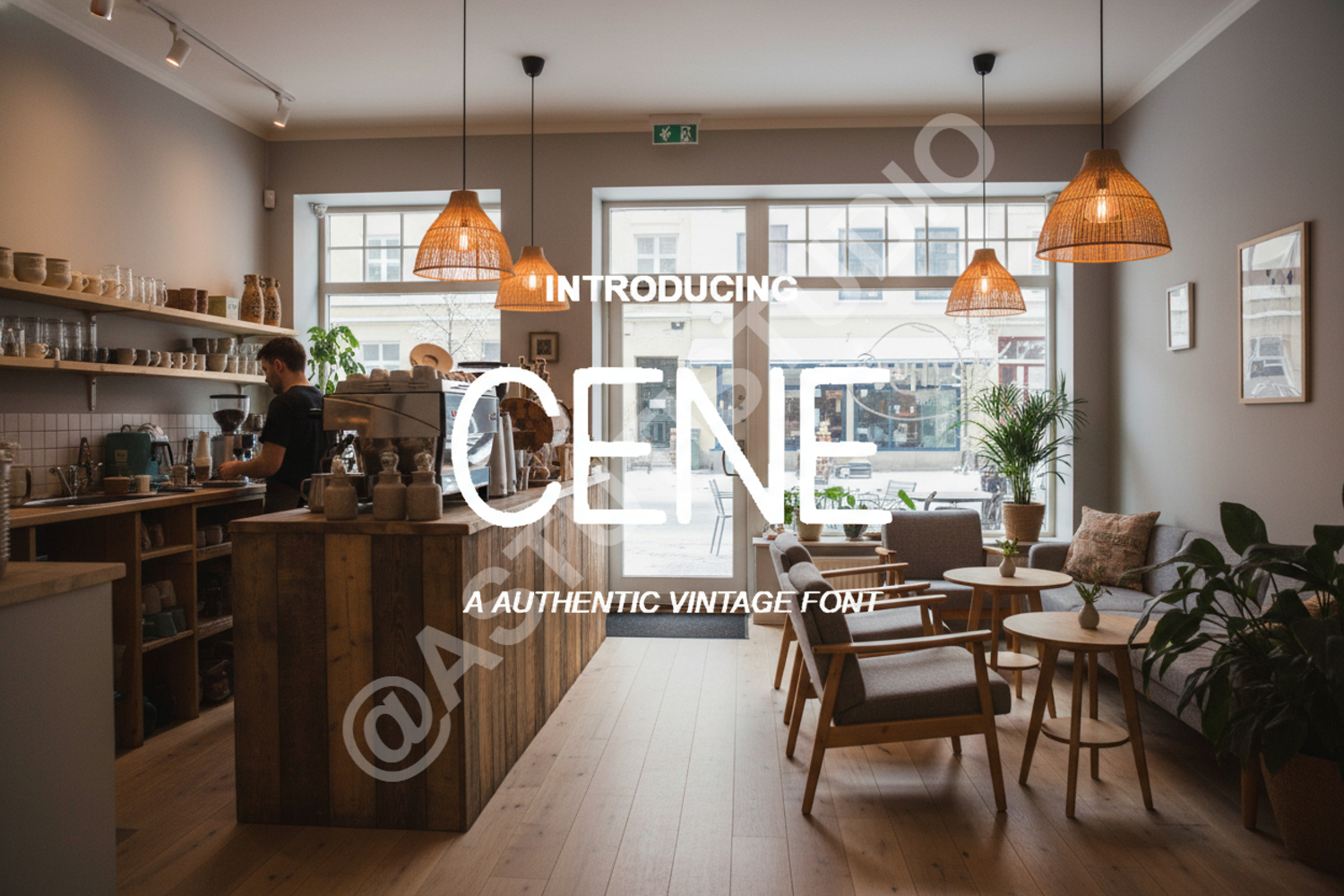
Cene - Modern Minimalist Serif Font
Cene
Cene is a sophisticated and highly versatile serif font designed for those who value elegance and clarity. With its clean lines and balanced proportions, Cene brings a premium feel to any creative project. Whether you are looking for a timeless look or a contemporary edge, this font adapts effortlessly to your vision.
- Branding and Visual Identity: Perfect for high-end logos and brand guidelines.
- Editorial Design: Ideal for magazine layouts, book covers, and headlines.
- Wedding Stationery: Adds a touch of class to invitations and menus.
- Social Media: Elevate your digital presence with clean, readable typography.
- Advertising: Create impactful promotional materials that stand out.